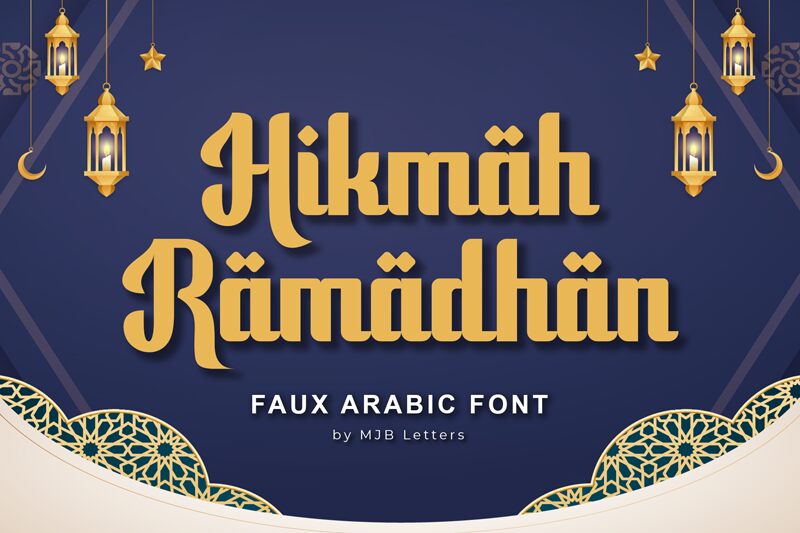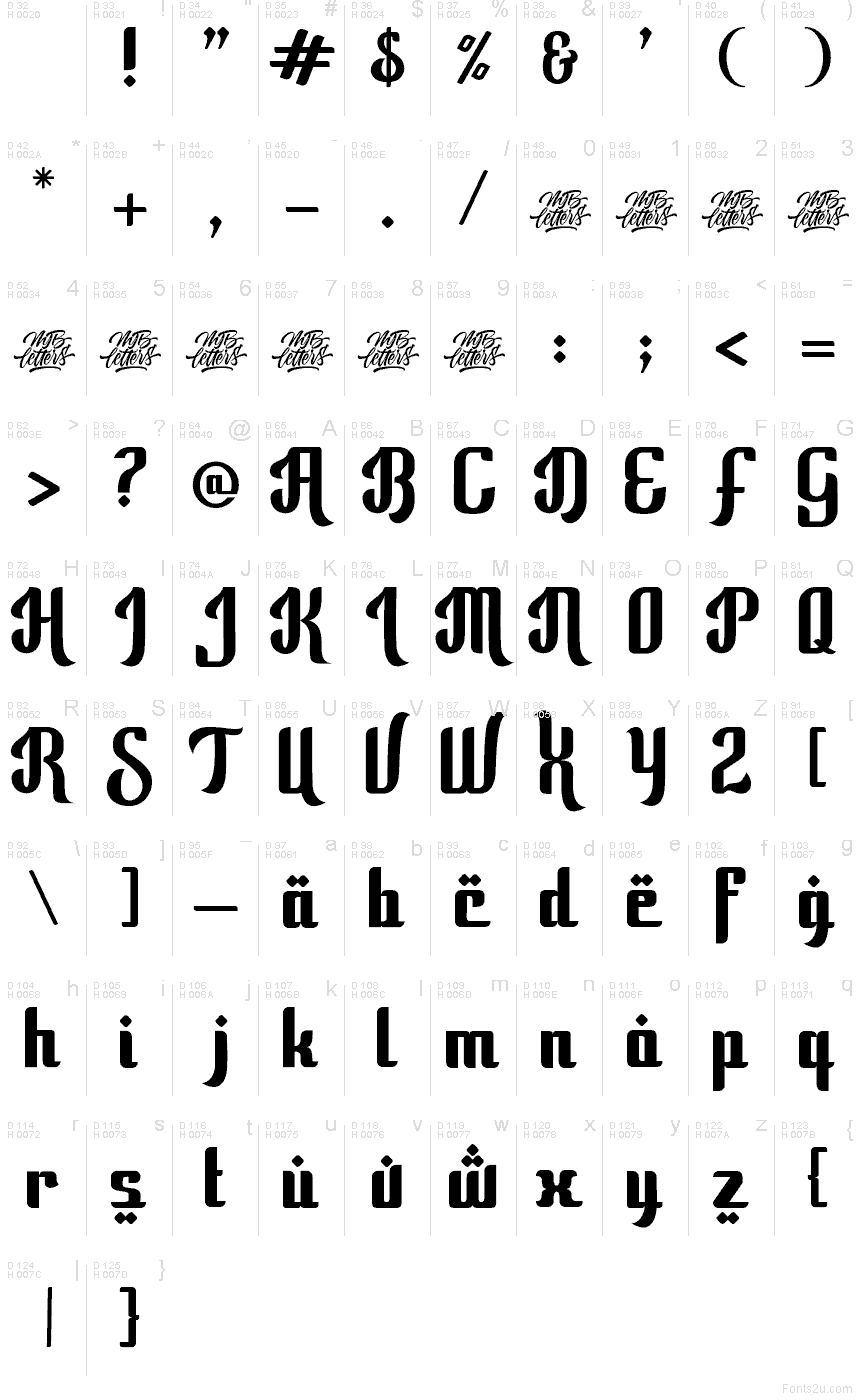
Hikmah Ramadhan font by MJB Letters is a free decorative faux Arabic typeface that wraps Latin letters in a warm, Middle Eastern flair. Its bold strokes, scalloped curves, and tall, lantern-like forms give headlines a rich, festive rhythm that feels right at home in Ramadan and Eid visuals. The slightly condensed shapes let you pack in impact without feeling cramped, while the smooth, inky texture keeps it readable at a glance.
Using Hikmah Ramadhan, you can instantly set the mood for Ramadan greeting cards, iftar event posters, halal restaurant menus, product packaging, social media banners, and YouTube cover art. This free font shines when used large for headlines or logotypes, then paired with a clean sans serif for supporting text to keep everything clear and modern.